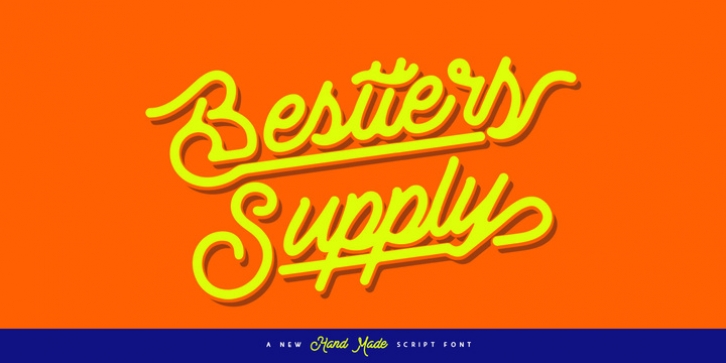
Bestters Supply is a hand made script font, bold, classic and fun vintage script. Can be used for various purposes such as logos, t-shirt, letterhead, signage, news, shopping bag, posters, badges etc.
Bestters Supply comes with Opentype features with 400 glyphs inside. Including alternate characters upper and lower case, ligatures, discretionary ligatures, and multiple language support.